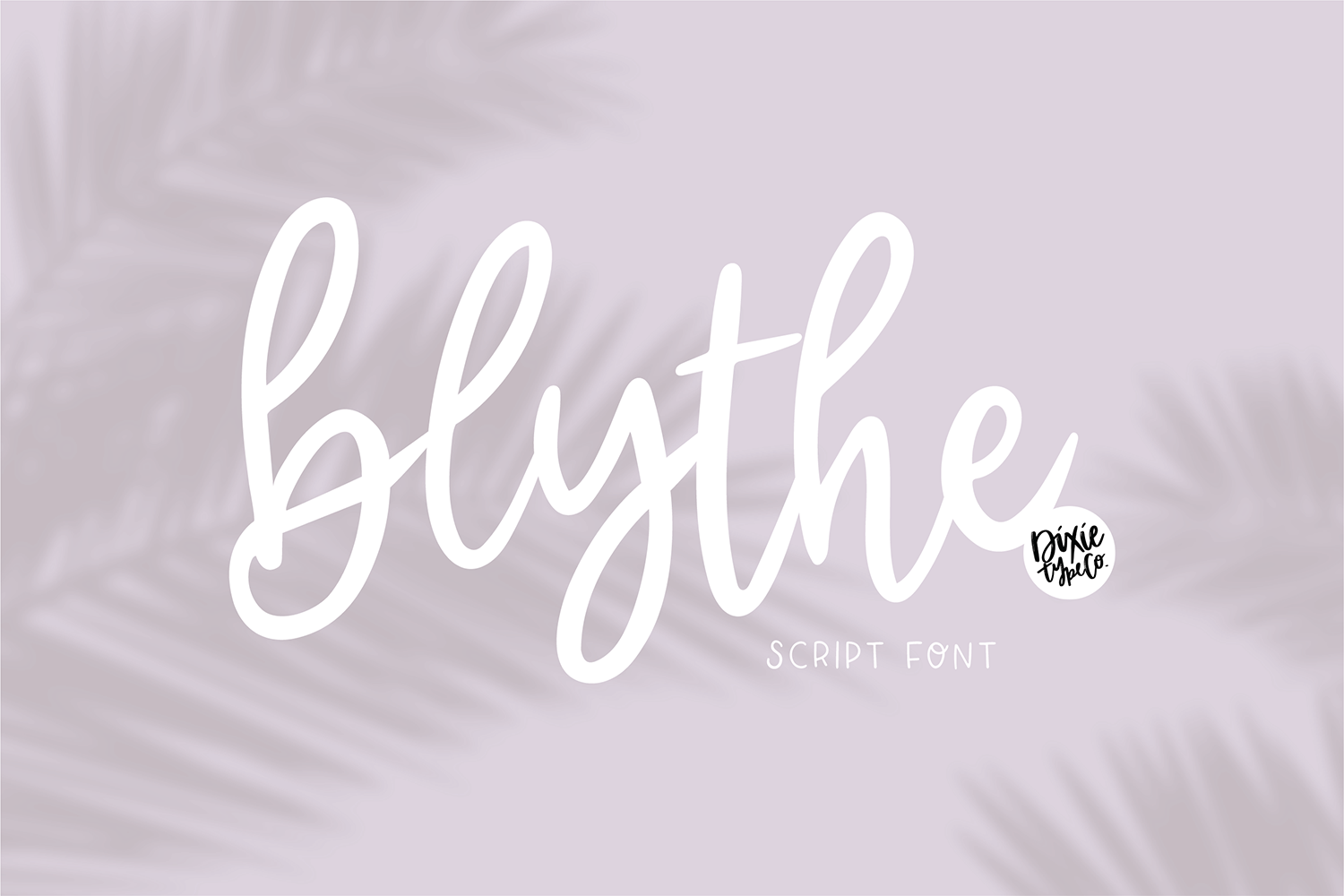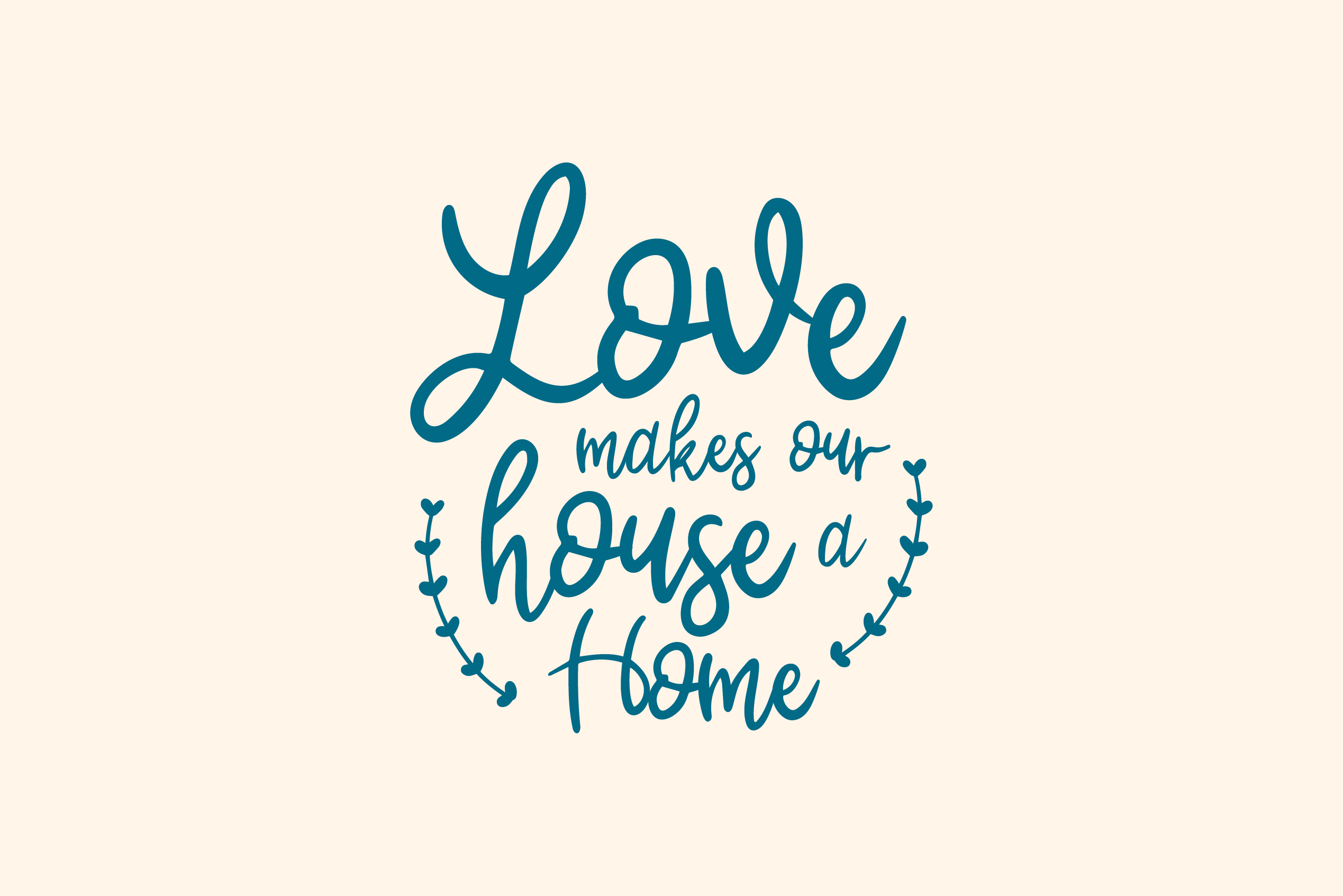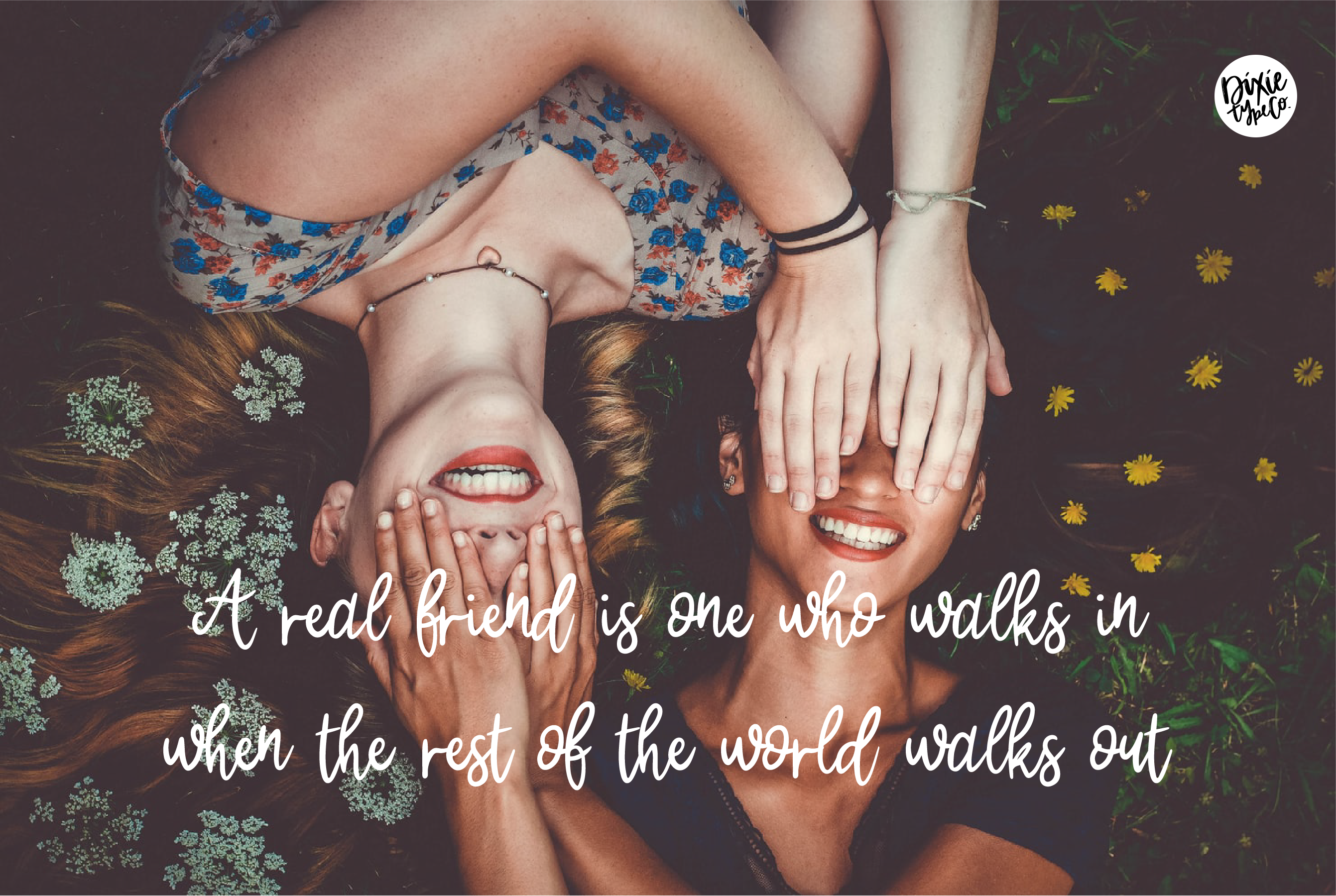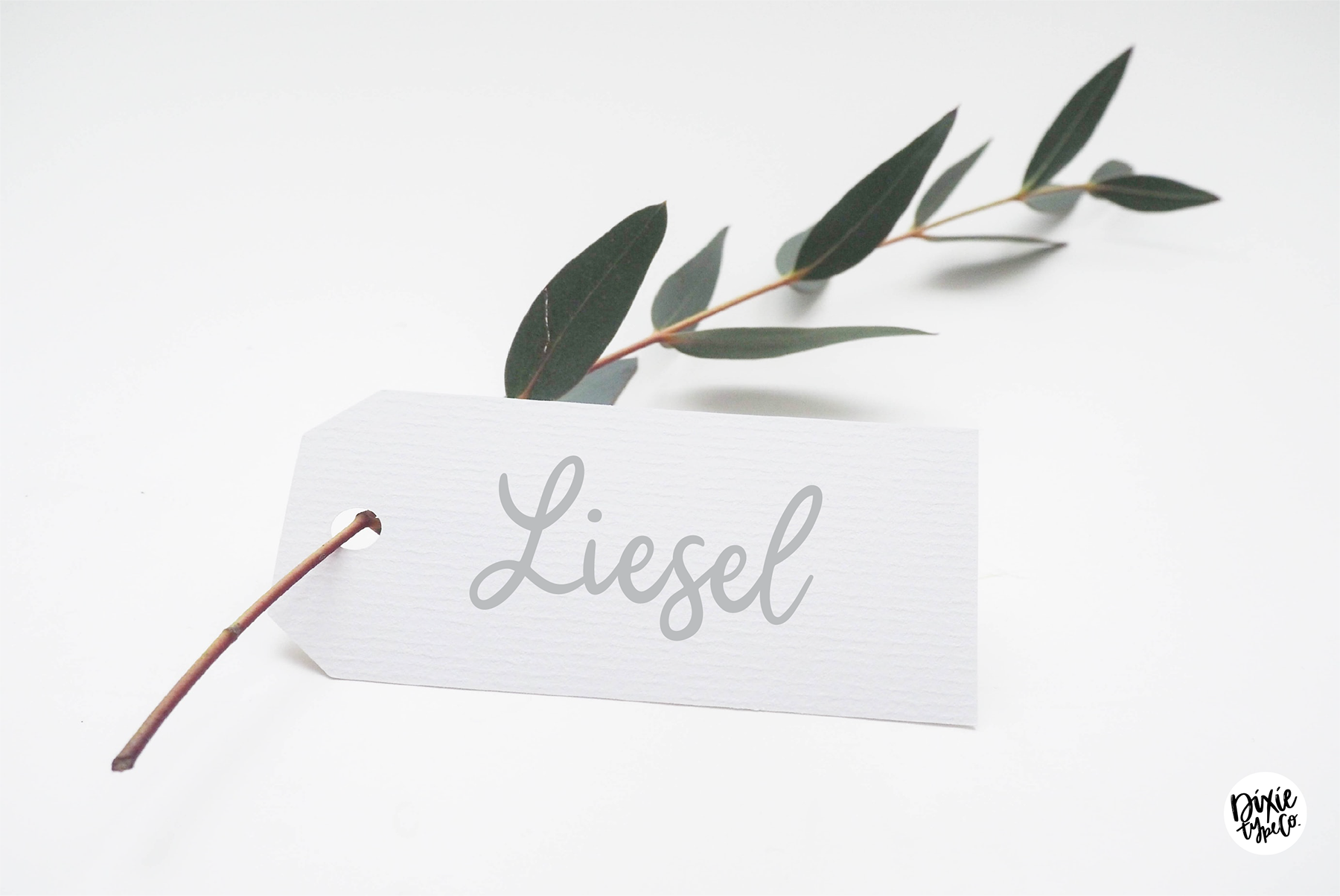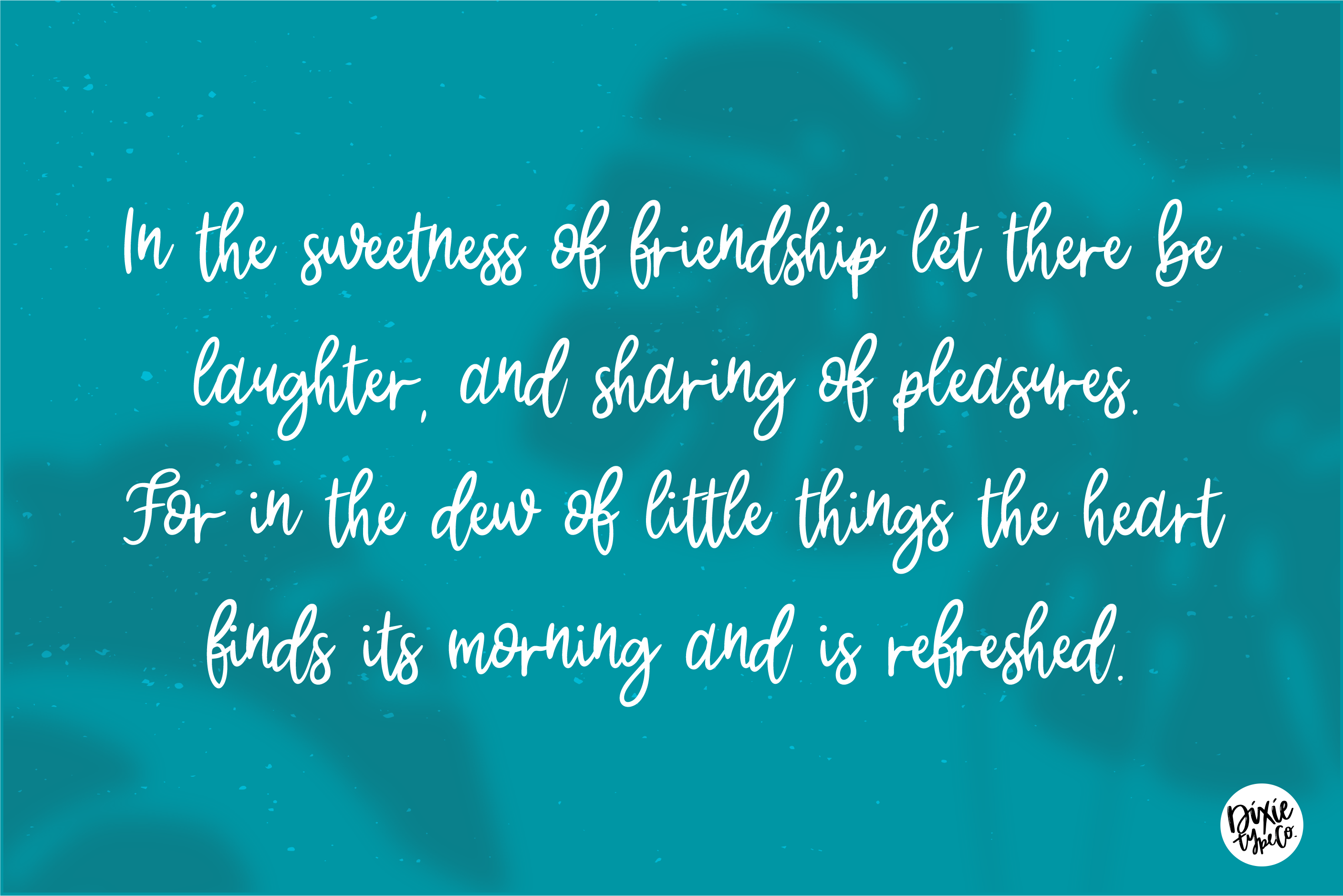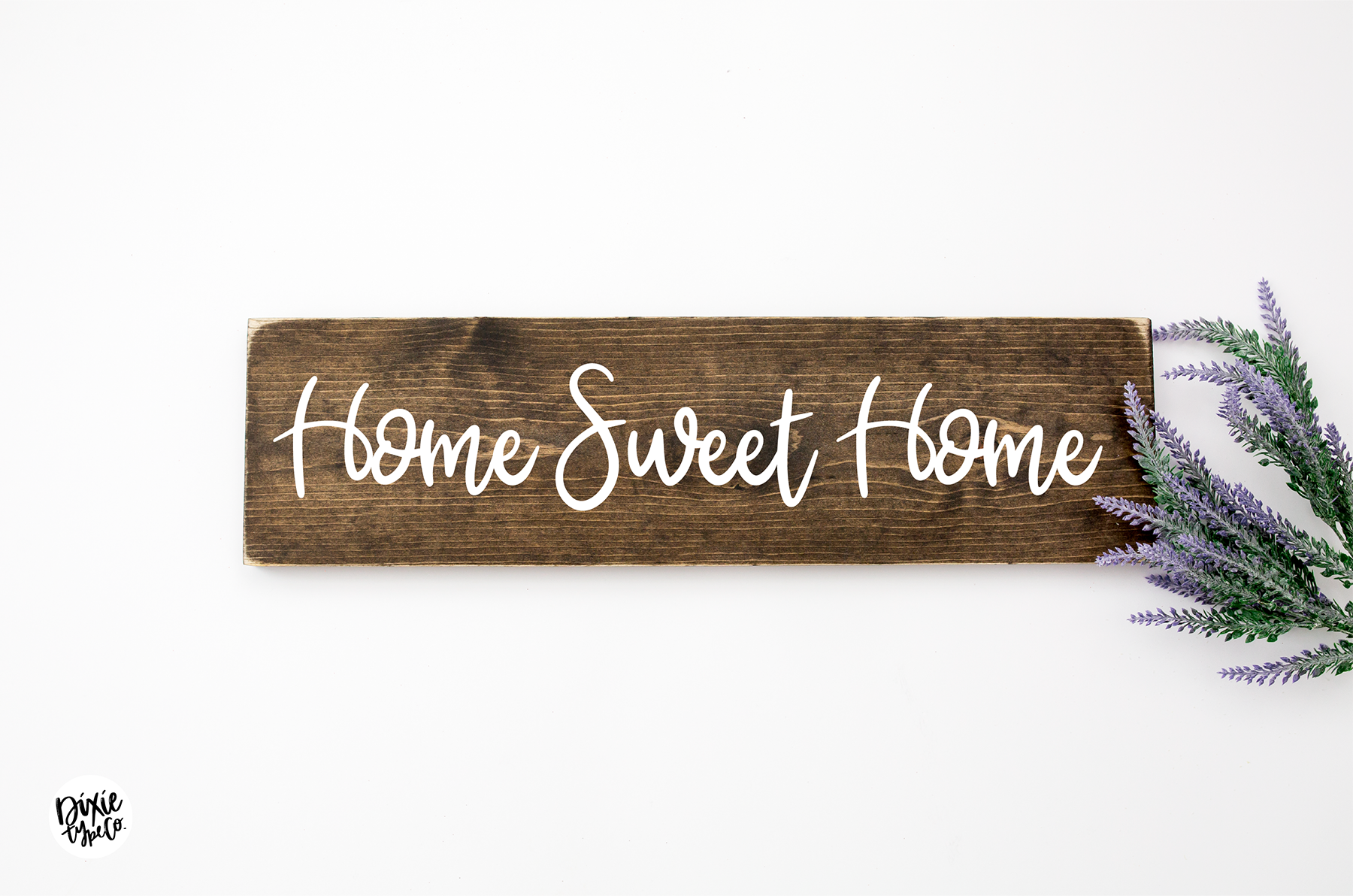
"Blythe" script font { A typographic font hand-lettered with love by Dixie Type Co. } This listing is for the instant download of the .otf file of this font. Blythe is a beautiful hand-lettered script font. This font is perfect for your craft projects, wedding invitations, farmhouse signs, and more. FONT INCLUDES: -Upper and lowercase glyphs -basic punctuation characters -numbers Font will be found under "DTC Blythe" in your library. | BLYTHE Hand Lettered Script Font | Blush Font Co